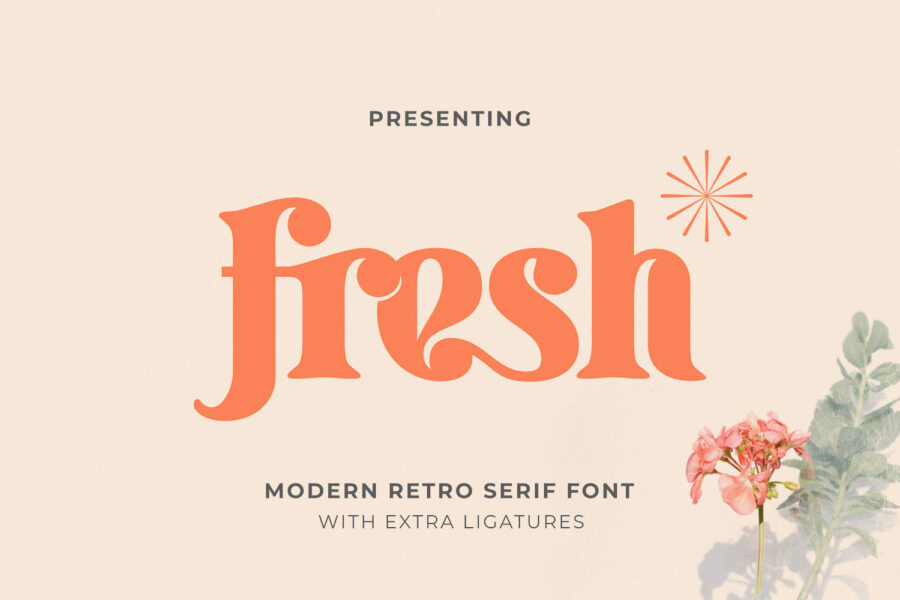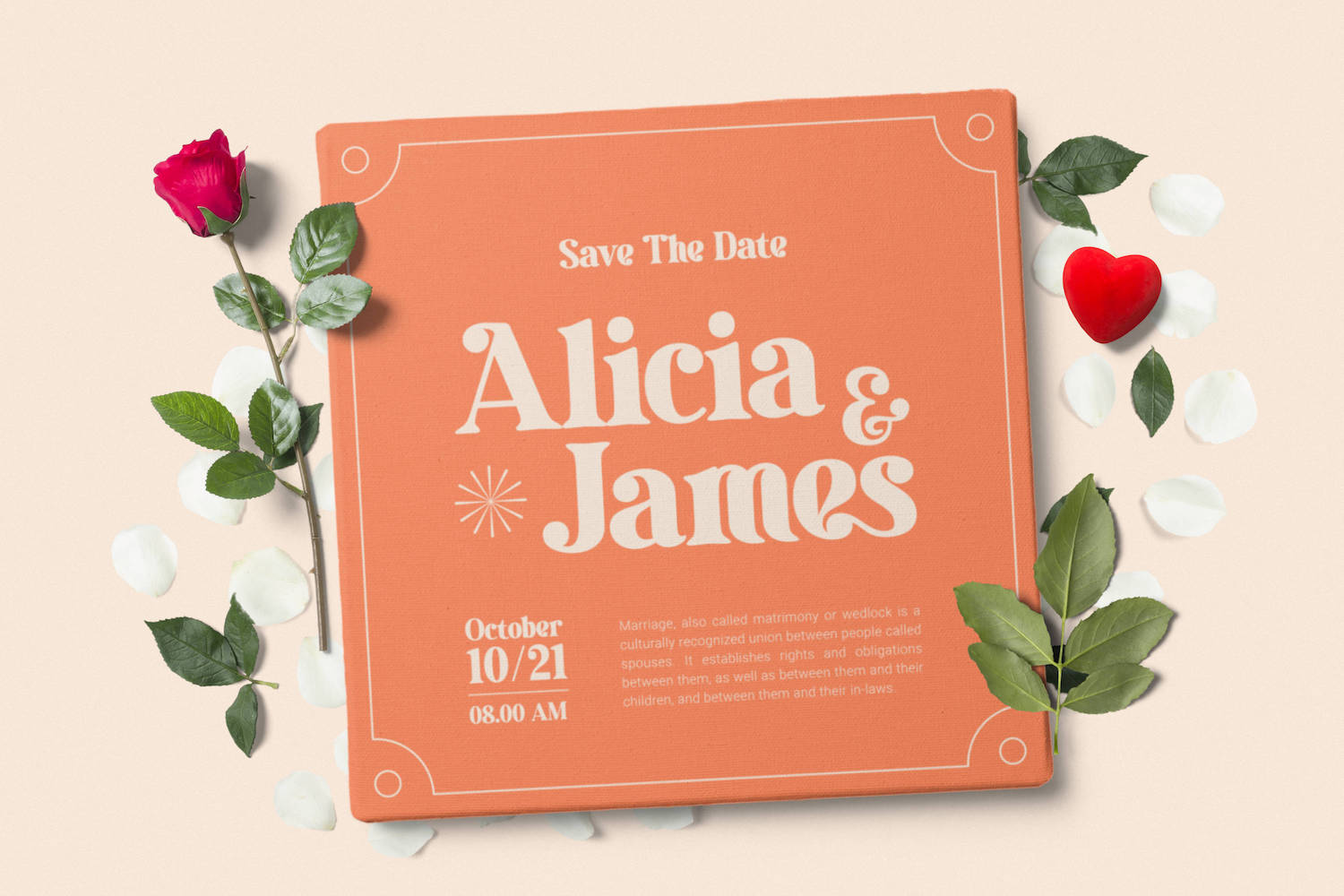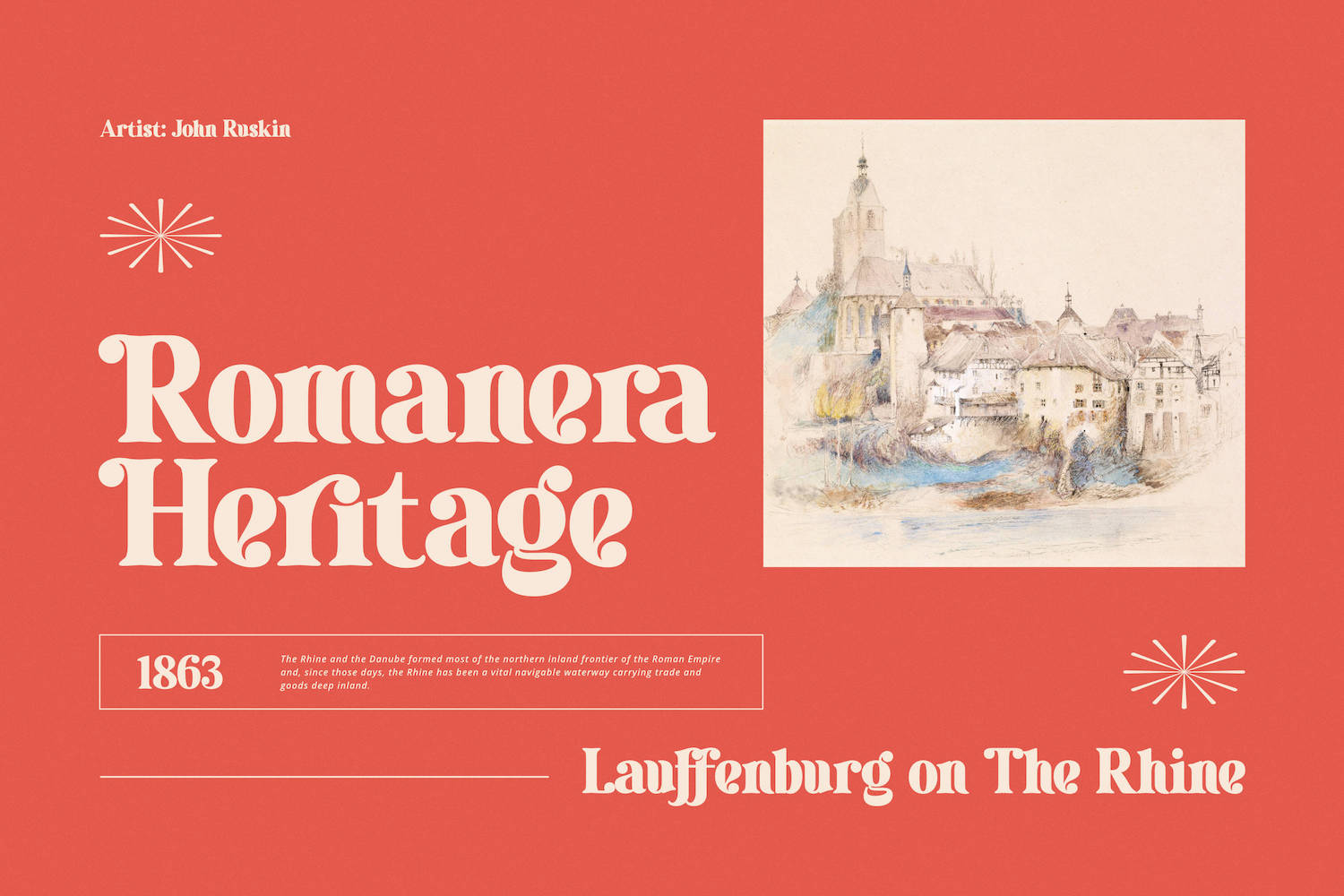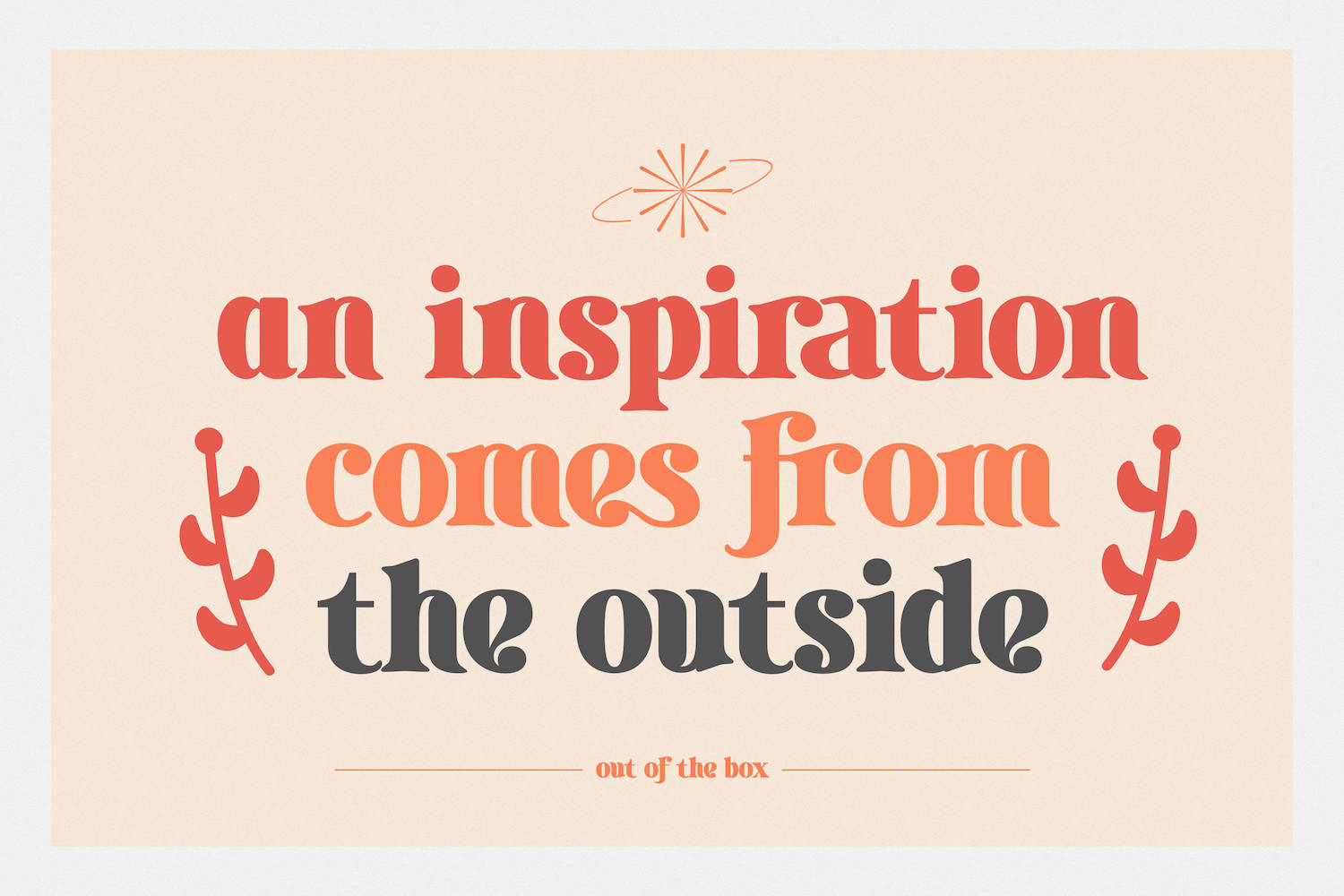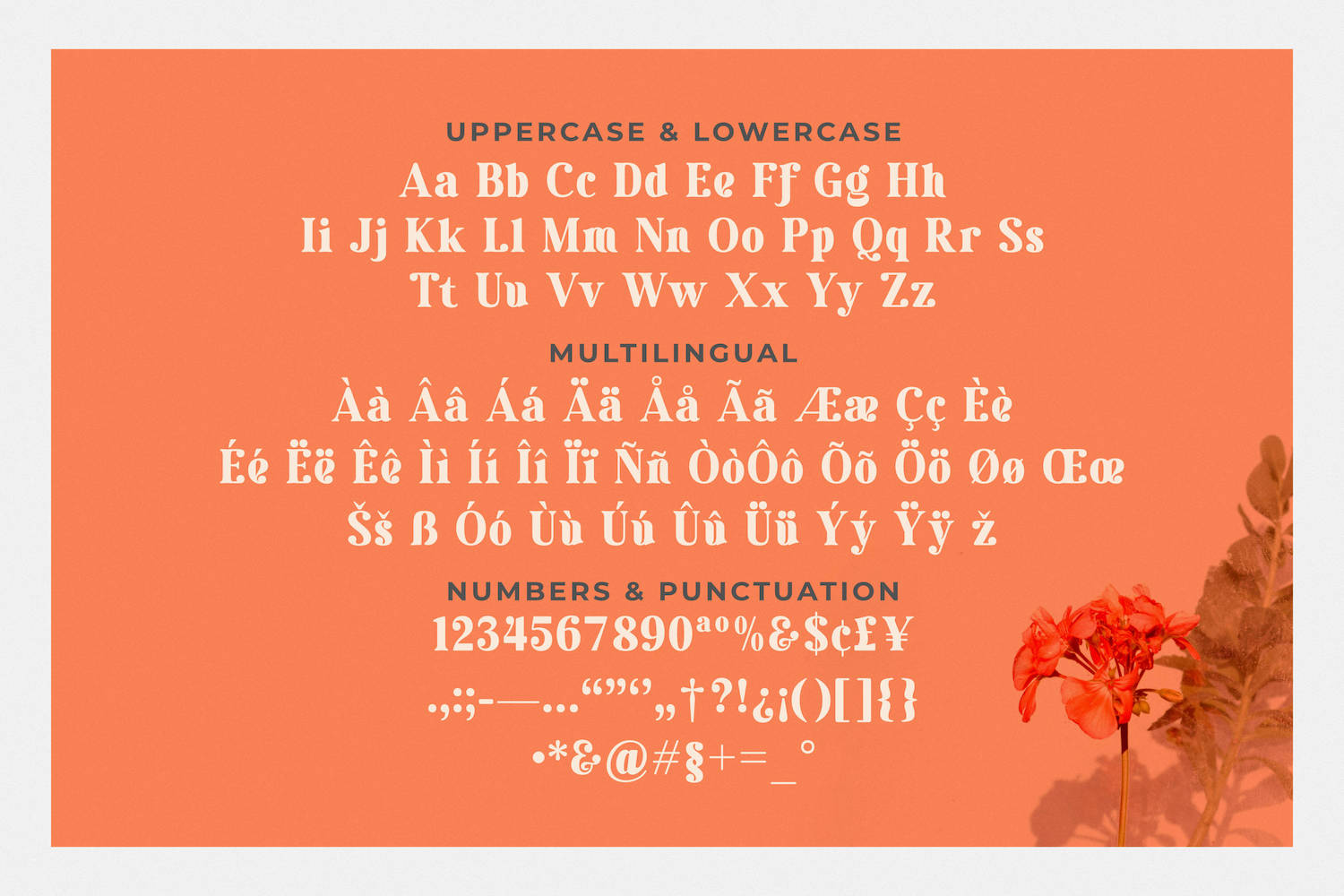
Fresh
Introducing Fresh, a modern retro serif font that brings a nostalgic yet trendy vibe to your design work. With its bold curves, fun ligatures, and balanced elegance, Fresh blends vintage aesthetics with a modern twist. Each letter is thoughtfully crafted to ensure charm and readability, making it ideal for branding, wedding invitations, posters, social media graphics, and anything that needs a touch of personality.
Fresh includes uppercase and lowercase letters, multilingual support, numbers, punctuation, and a beautiful collection of ligatures that help your text flow naturally. Whether you’re designing for a romantic occasion or a playful brand, Fresh is your go-to display font to make a statement with style.